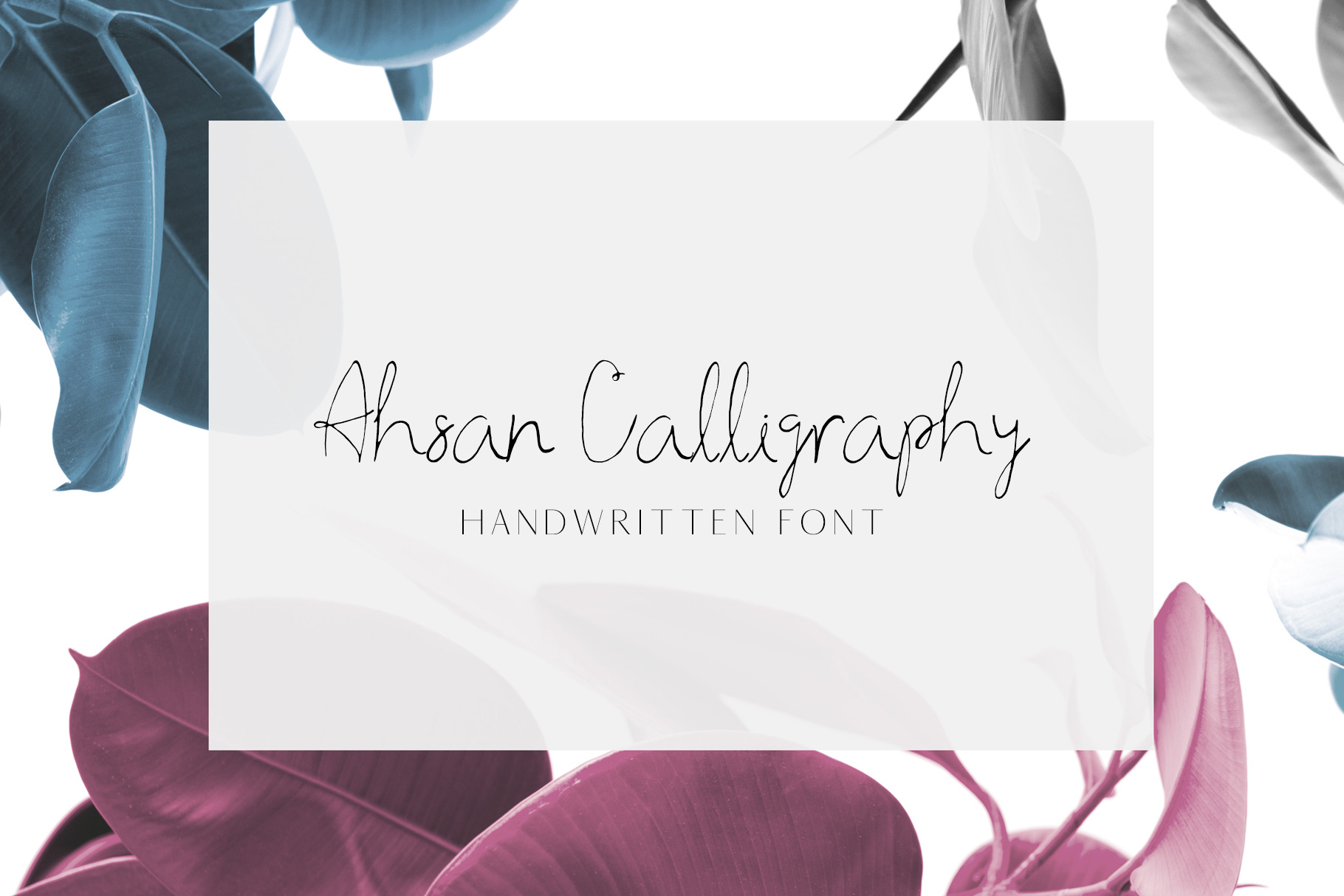
Ahsan Calligraphy is a script font with contemporary, enlightened accents. It includes full set of gorgeous uppercase and lowercase letters, numerals, a large range of punctuation and ligatures. It's perfect for branding, wedding invites, cards, greeting cards, T-shirt, branding & logo projects, merchandise, social media posts, product packaging, and more.
Ahsan Calligraphy Font Features:
Uppercase Multilingual Letters
Lowercase Multilingual Letters
Alternative